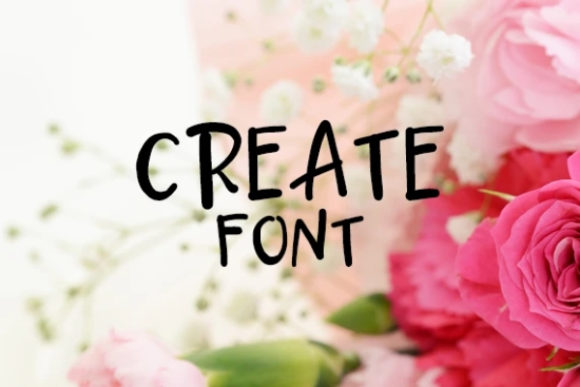
Enhance Your Campaigns with Cageworld Display Font
As I sat down to finalize the visuals for our upcoming product launch, I knew I needed a font that would not just stand out but also resonate with our vintage-loving audience. Enter Cageworld, a handcrafted display font with a timeless, retro vibe that perfectly complements any design project requiring a classic, elegant touch.
Using Cageworld for Instagram and Pinterest Visuals
For our Instagram posts and Pinterest pins, Cageworld was the perfect choice. Its unique, handcrafted style adds a personal and nostalgic feel, making our content more engaging and shareable. Whether it's a simple quote graphic or a detailed infographic, Cageworld elevates the visual appeal and helps our message stand out in a crowded feed.
Cageworld in YouTube Thumbnails and Social Media Banners
Creating eye-catching YouTube thumbnails and social media banners is crucial for grabbing attention. With Cageworld, we were able to craft thumbnails that not only looked professional but also had a distinctive, retro charm. This font's versatility made it easy to use in both short, impactful headlines and longer, descriptive text, ensuring our videos and posts got noticed.
Cageworld for Email Banners and Online Shop Promotions
Incorporating Cageworld into our email campaigns and online shop promotions has been a game-changer. The font's vintage look adds a premium, high-quality feel to our promotional materials, making them more appealing to our target audience. Whether it's a sale announcement or a new product launch, Cageworld helps us convey our message with clarity and style.
Practical Tips for Using Cageworld in Digital Ads and Branding
When using Cageworld in digital ads and branding, it's important to consider readability and visual hierarchy. For mobile screens and small previews, keep the text concise and use a clean sans serif font as a complementary typeface. This ensures that your message is clear and easily readable, even in fast-scrolling feeds.
Maximizing Cageworld for Web Design and Brand Identity
Integrating Cageworld into our web design and brand identity has helped us create a cohesive and memorable brand presence. From landing page headers to call-to-action buttons, this font adds a touch of elegance and personality. It’s particularly effective for logo-style text and decorative titles, making our brand more recognizable and distinct.
Cageworld in Editorial and Packaging Design
For our editorial and packaging design projects, Cageworld has been an invaluable asset. Its vintage look and handcrafted feel make it ideal for creating high-impact, visually appealing designs. Whether it's a magazine cover, a product label, or a branded template, Cageworld brings a level of sophistication and charm that resonates with our audience.
With its versatile and timeless design, Cageworld is a must-have for any marketer, designer, or creative looking to elevate their projects and make a lasting impression. Give it a try and see how it transforms your next campaign!